Gerlomi
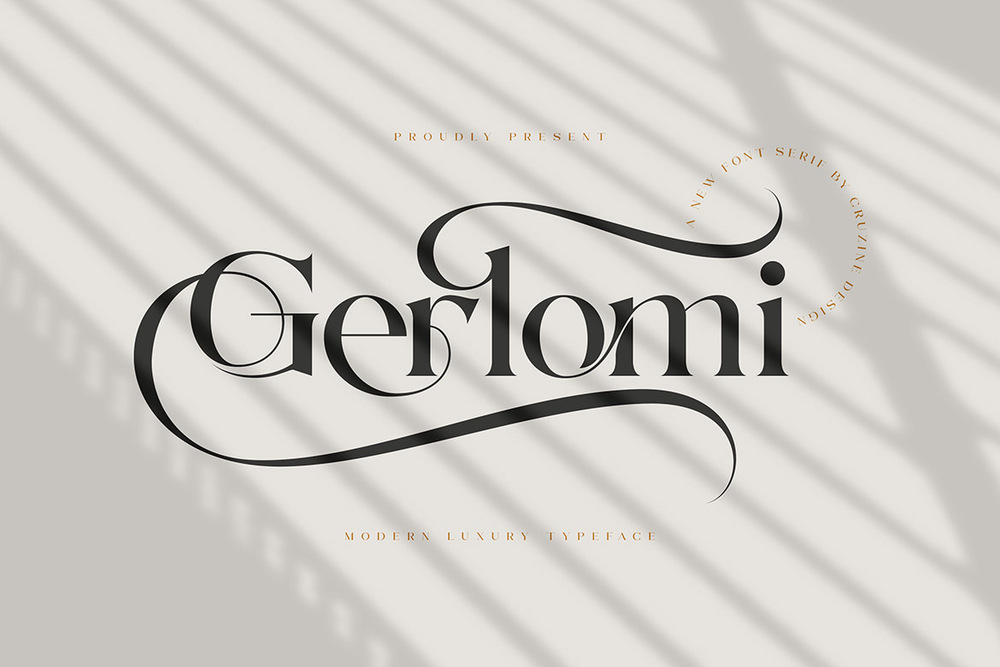
Trendy, classy and modern style serif font for your fancy projects. Elegant, fashion and classic style font will be great for any branding projects. Lot of alternates, ligatures and multilingual support will help you to create unique designs.
Genio
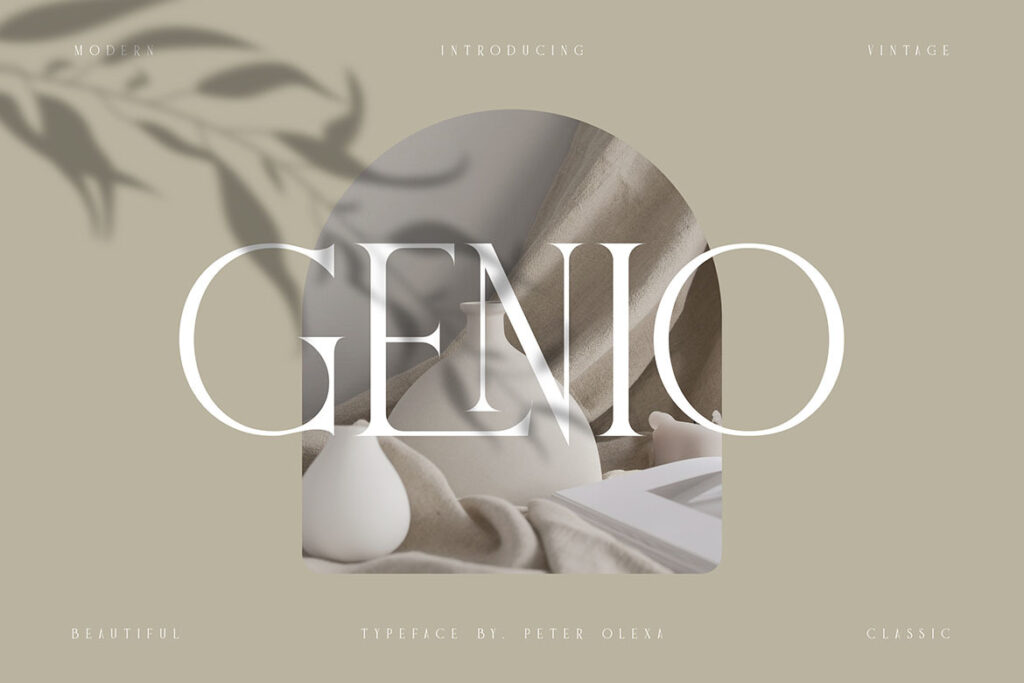
Trendy, modern, clean, vintage, retro and classy serif font. Great for your new logo or branding projects. A lot of alternates to create amazing designs.
Koela
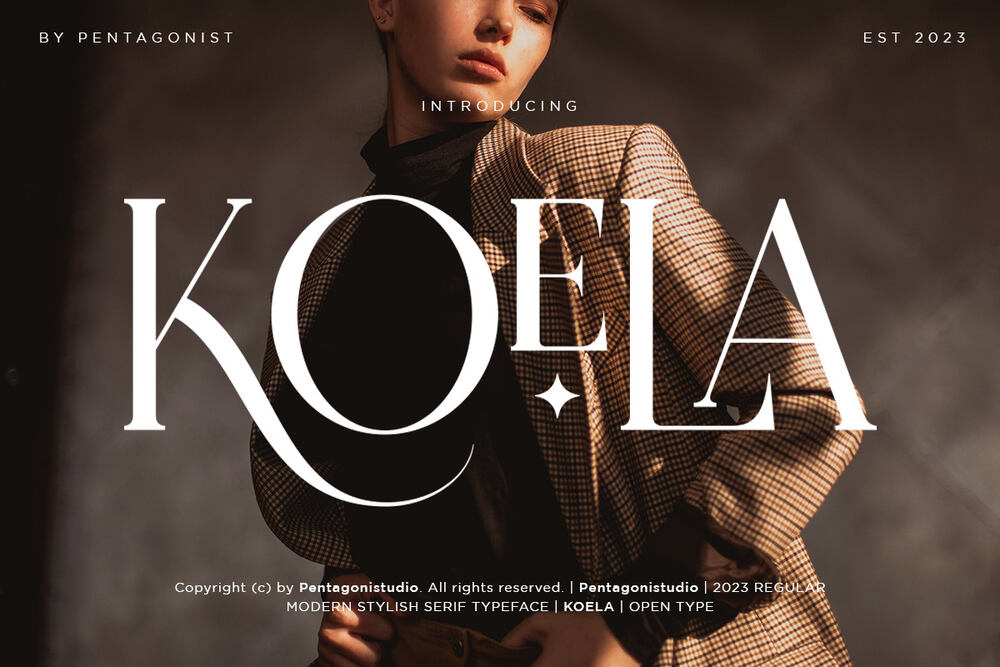
It is a modern serif font with stylistic alternates and ligatures so good going for your designs such as titles, booc covers, web design, packaging, posters and many more.
Alona
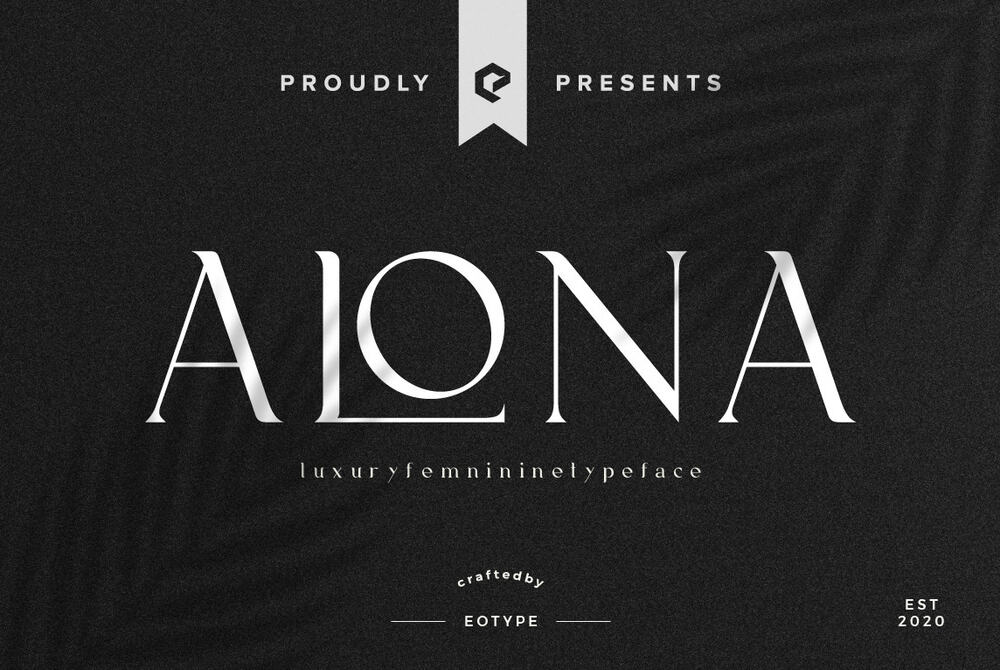
It is a minimalist modern elegant and vintage font with beautiful ligatures, special alternative glyphs. It’s a very versatile font that works great in large and small sizes. Perfect for branding projects, logos, clothing branding, product packaging, magazine headers and many more.
Luxury
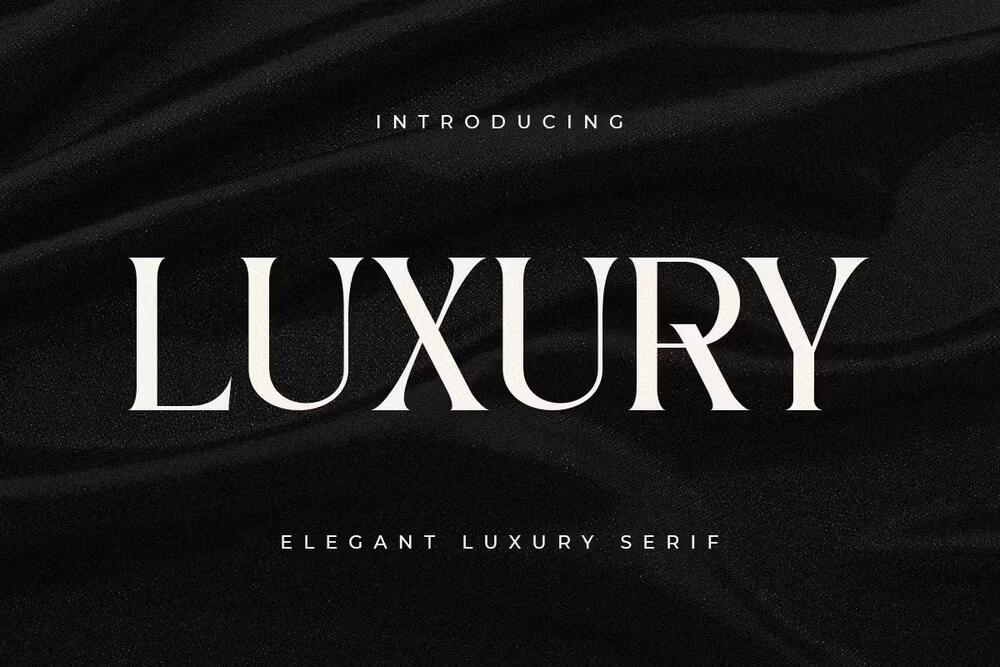
A serif font that we created special for luxury branding needs, with extra ligatures and alternates in unique shape will be ready to add value of your brand. Ideal for titles, headlines, web design, posters, logos, packaging and many more.
Loveround
A modern and luxury serif font that designed with original touch for all your designs needs. This cool font is complete with uppercase, lowercase, numeric and symbols. This very strong and sharp font is perfect for titles, typography, posters, magazines and many more.
NewYork / Free
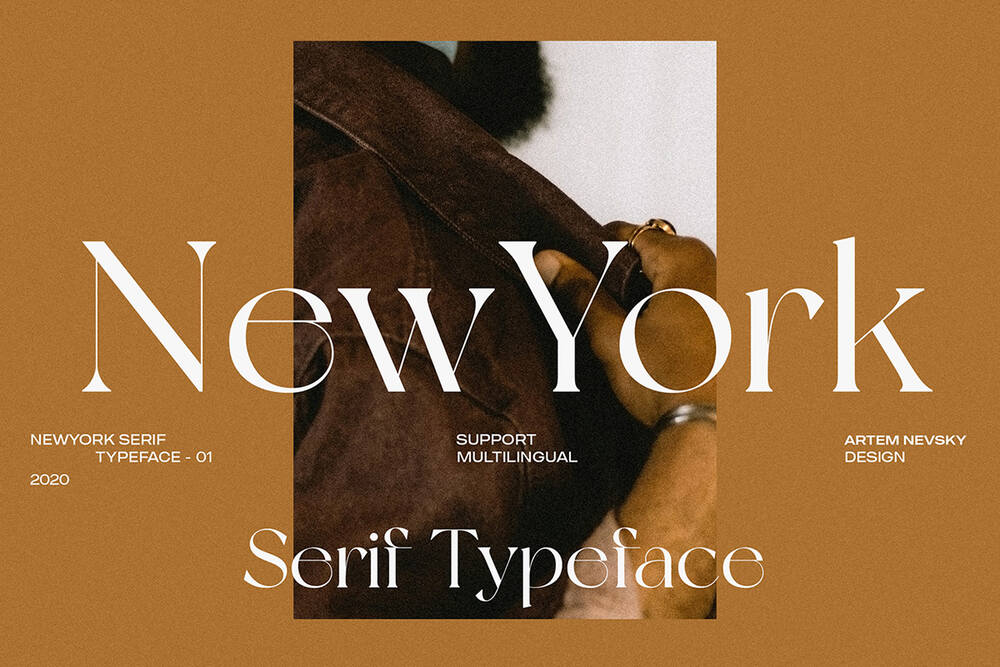
This beautifully timeless serif typeface is the definition of high fashion. An elegant free to use font needs to be in your collection and it’s perfect for your next luxury design projects. Free for personal and commercial use.
Kage / Free
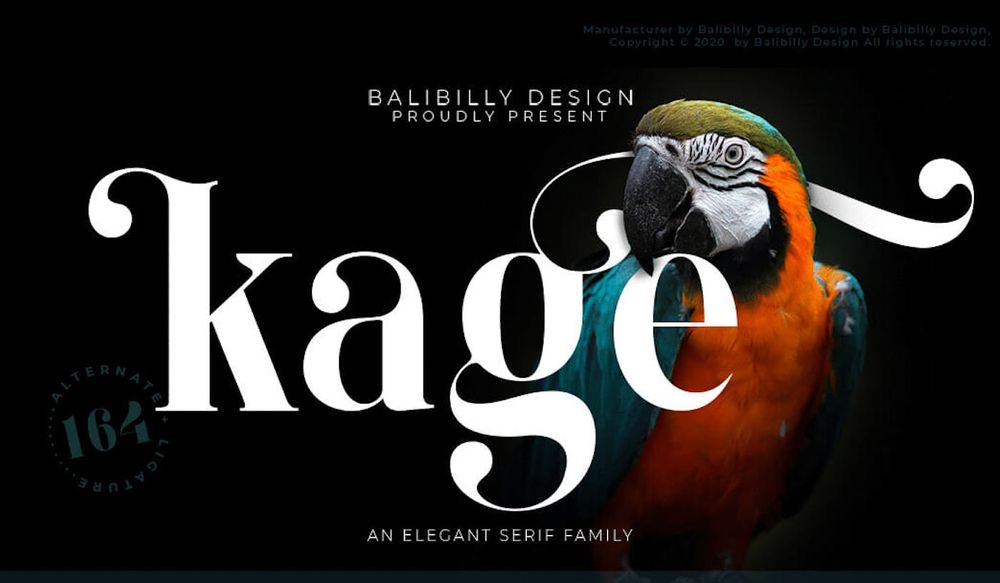
It is a strikingly versatile font, a bold choice for branding projects, logos, postcards, magazine imagery and many more. Free for personal use only.
Casanova / Free
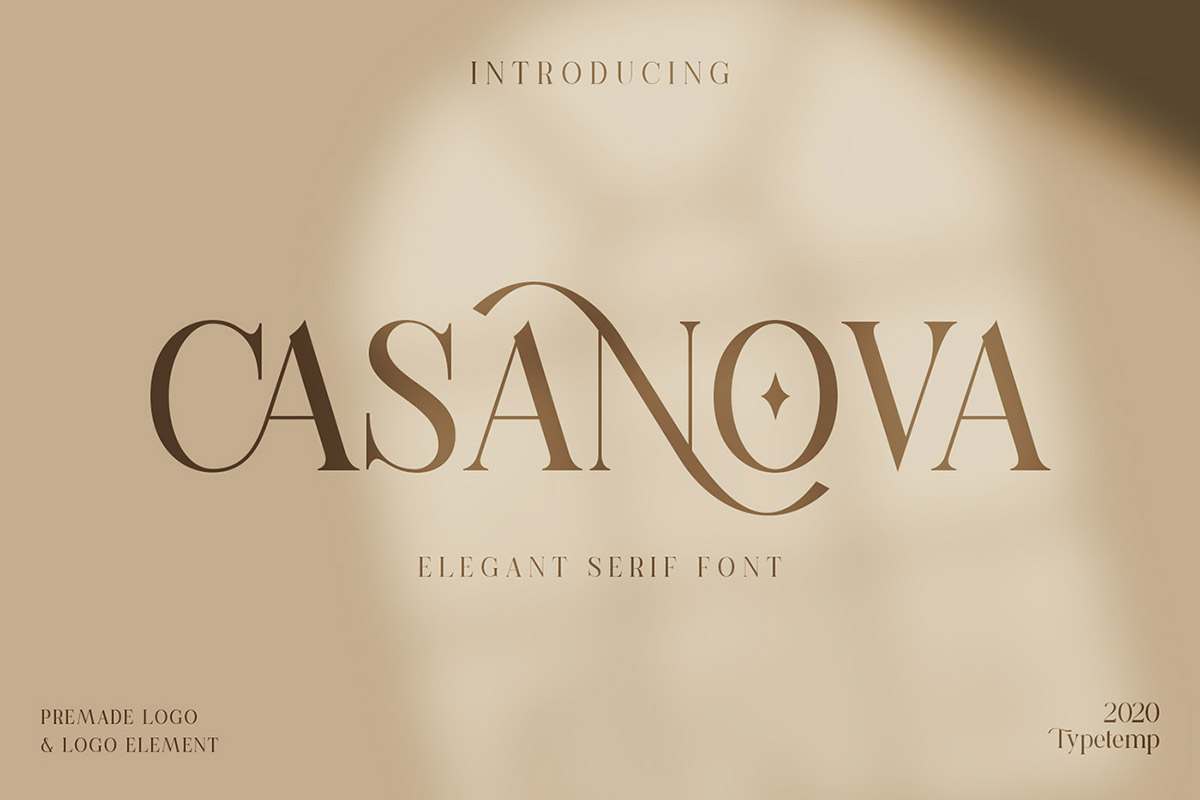
A free unique, sophisticated and modern-style serif font which has been carefully crafted to make your design looks fashionable. It contains lowercase, uppercase, number, punctuation and symbols. Ideal for branding projects. Free for personal use only.
Kenfolg / Free
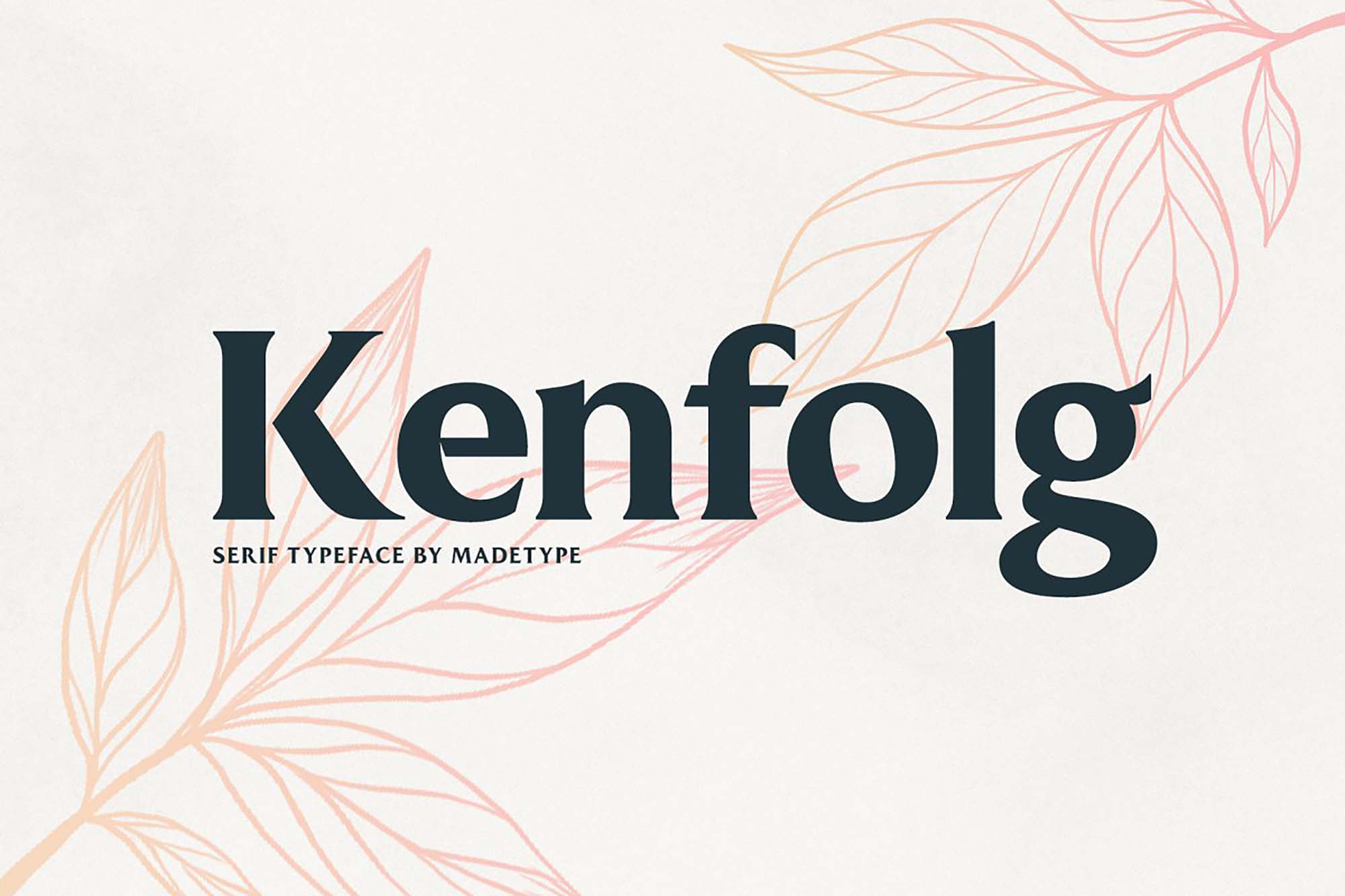
This font can be described as a display titling serif typeface. A casual and classy that it’ is’s great for logos and branding designs. Free for personal use only.
Aguero / Free
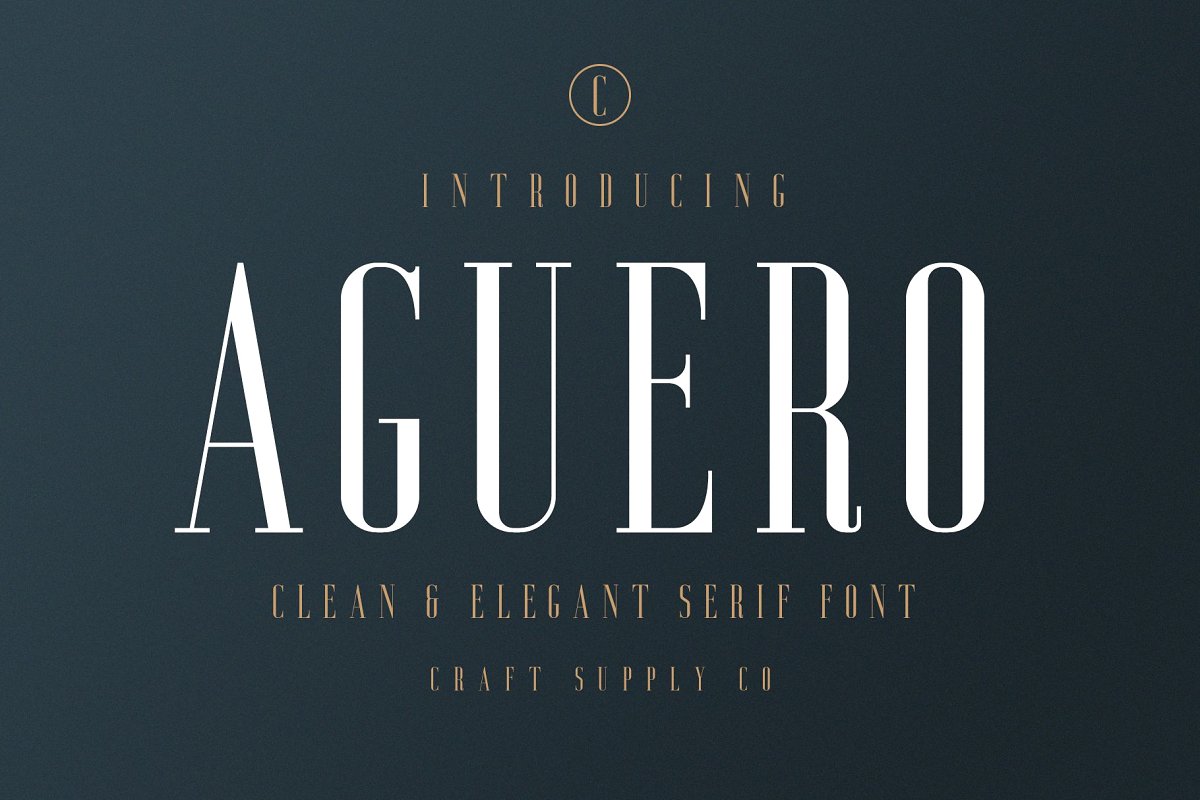
A clean and elegant condensed serif font is a modern font family for display designs such as titles, headlines, covers, posters, packaging and many more. Free for personal use only.
Viola / Free
It is a timeless font that can decorate your projects with minimalist style creations. Perfect for display needs, titles, web and graphic designs, posters and many more. Free for personal use only.
Voga / Free
This font is a mix contrasting straight lines, corners and curves. Each individual letter has a particular style with both thick and thin strokes. Just erfect for formal invitations and large headings in editorial layouts. Free for personal and commercial use.
Luck Moniec
It is a luxury typeface with visual elegance, smooth curves, and beautiful ligatures clear, making your work look true and attractive. Ideal for designs such as logos, invitations, branding, magazines, photography, cards and many more.
Moora Light
Playfully nostalgic font delivers an incredible vintage aesthetic. Use this serif font to add that special retro stylish touch to any design idea you can think of.
Moonic
A luxury old style seif font that soo good for your designs such as posters, banners, logos, invitations, magazine covers, quotes, headings and many more.
Moeda
It is a serif look font with simple, clean, and formal elegance. Specially designed for elegant themed projects. Perfect for creating simple and clean lifestyle designs, such as logos, titles, magazines and many more.
Supravitally
A modern serif font that feels beautiful classy, elegant, and modern. It’s perfectly suited for a wide variety of projects, such as signatures, stationery, logos, wedding, typography quotes and many more.
Hesgaki
A classy signature font in luxury style, so good going for greeting cards, branding materials, business cards, quotes, posters, and more.
Galine
This font is perfect for making a statement with your next project. It’s unique, stylish and perfect for adding an extra touch of elegance to any design. it supports a multiple languages so you can use it anywhere in the world.
Helma
It is a display serif typeface that has been expressly designed for high-resolution displays such as digital and print media. It’s also perfect for the title texts, corporate branding, and other design applications.
Fancyou
It is a classy vintage-inspired serif typeface with modern proportions consisting of 8 styles. These fonts are characterized by sharp serifs that bring a fashionable feel to your designs.
Gondgir
Trendy, classy and modern style serif font for your fancy projects. Lot of alternates and ligatures will help you to create unique and original logo design or website header. Multilinguar supports.
Ginebra / Free
A serif typeface for headings and body copy. Can be used for personal and commercial use in all types of projects.
Wallington / Free
It is a decorative-serif font embodying vintage and elegant curves with functional structure. Ideal to create designs such as old book covers, posters, flyers, packaging, branding and many more. Free for personal use only.
Zanna / Free
A modern, stylish and nostalgic typeface that can be paired with a beautiful minimal sans serif or light script font, this combination will make your next project look elegant and classy. Free for personal use only.
Romans Story
It is a sophisticated ligature serif font. This typeface has been made carefully to make sure its premium quality and luxury feel. Suitable for logos, headlines, tittles, and the other various formal forms.
Glacior
It is a modern display serif font. Minimalist and classic typeface great for logos, quotes, branding or editorial design. It has uppercase, numbers, symbols and punctuations.
Aura Luxess
A stunning combination of a calligraphic script font and a modern serif font that exudes sophistication and luxury. Ideal for magazines, book covers, posters, packaging, invitations and many more.
Giflika
It is a stylish and modern display serif, best used for headings, logos, branding, magazines, product packaging and invitations. It equipped with ligature and many alternates and come with clean lines and smooth curves give any project an extra touch of class.
Adore
is an elegant serif typeface with delicate details. This neat font can contribute to the modern and fashionable appeal of the brand. Multilingual support.